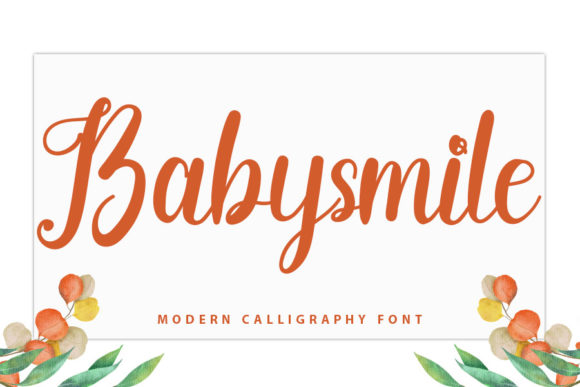
Introducing Babysmile Font - The Epitome of Grace and Style for Your Creative Projects!
Immerse yourself in the world of Babysmile Font, a captivating script font that exudes sophistication, elegance, and timeless beauty. Its graceful curves and impeccable form, reminiscent of classic calligraphy, will elevate your designs to new heights.
Babysmile Font is the perfect choice for primary school projects, as its legible and playful style effortlessly captures the innocence and wonder of childhood. With Babysmile Font, you can create eye-catching posters, vibrant worksheets, and delightful classroom decorations that will ignite a passion for learning.
Beyond the realm of education, Babysmile Font shines as a versatile and enchanting addition to your creative arsenal. Its timeless charm adds a touch of elegance to invitations, greeting cards, and social media posts. Whether you're a seasoned designer or a passionate hobbyist, Babysmile Font empowers you to express your creativity with unparalleled flair.
Join the growing community of designers and educators who have embraced Babysmile Font as their go-to choice for creating unforgettable designs. Experience the transformative power of a font that sparks joy, fuels creativity, and leaves a lasting impression.
Let Babysmile Font be your guide as you embark on a creative journey filled with limitless possibilities. With its enchanting charm and versatility, Babysmile Font is not just a font - it's an inspiration waiting to be unleashed.